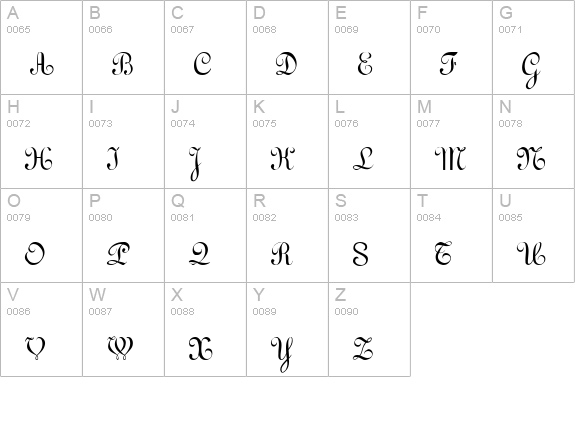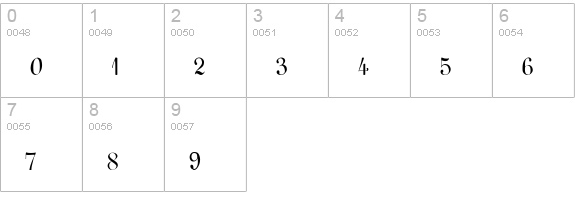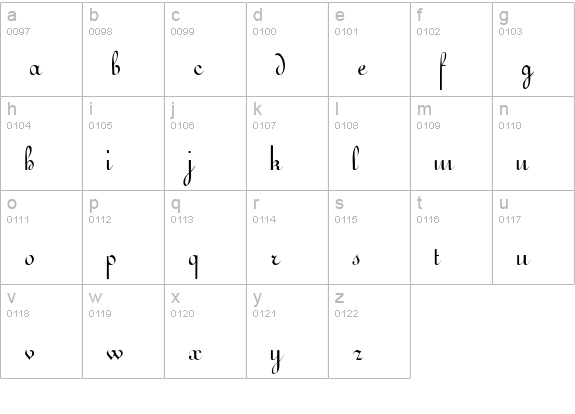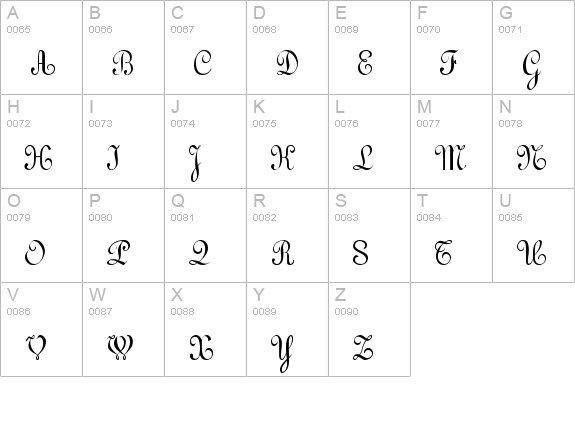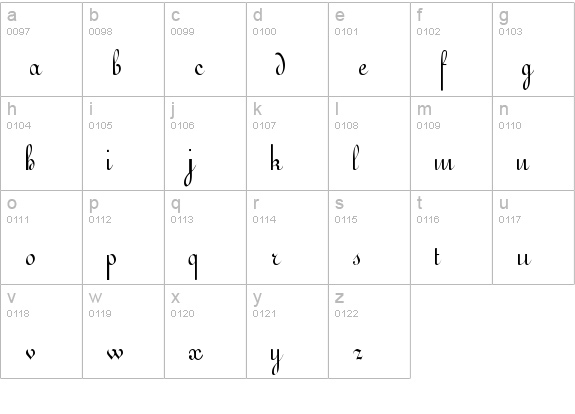
Arabesco Script SSi Font Details
Arabesco Script SSi font is a stunning and elegant typeface that exudes sophistication and charm. Its intricate and graceful calligraphy style is perfect for adding a touch of class to any design project. The flowing lines and ornate flourishes of Arabesco Script SSi font create a sense of timeless beauty that is sure to captivate any audience. The best part about Arabesco Script SSi font is that it is available for free download at FontsMarket.com. This means that you can easily access this exquisite font and use it in your projects without any cost. Whether you are working on invitations, branding, or any other creative endeavor, Arabesco Script SSi font will elevate your designs and make them stand out from the rest. Embrace the beauty and elegance of Arabesco Script SSi font today by downloading it for free at FontsMarket.com. Let this exquisite typeface inspire your creativity and bring a touch of sophistication to your next project.